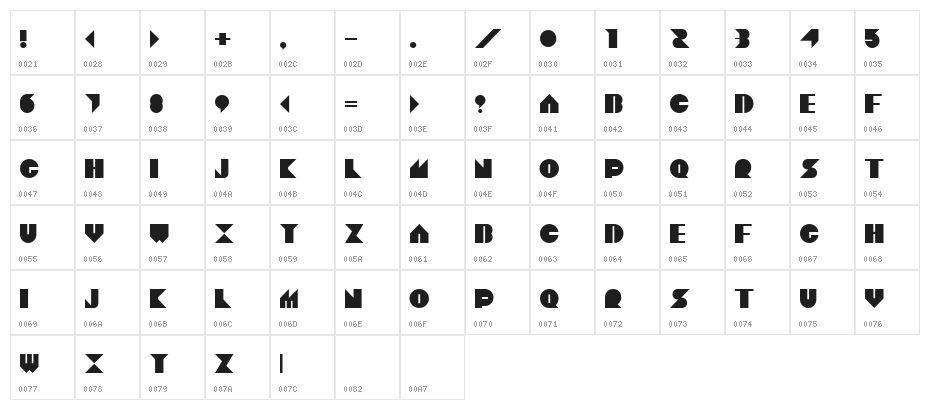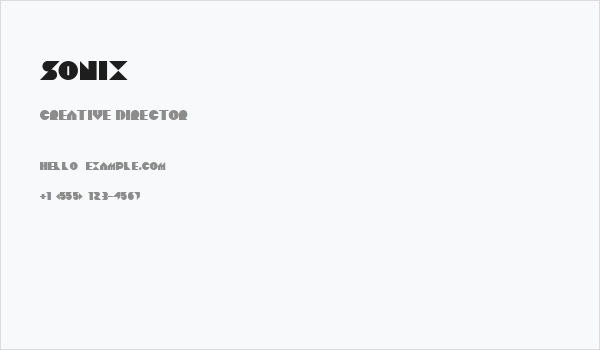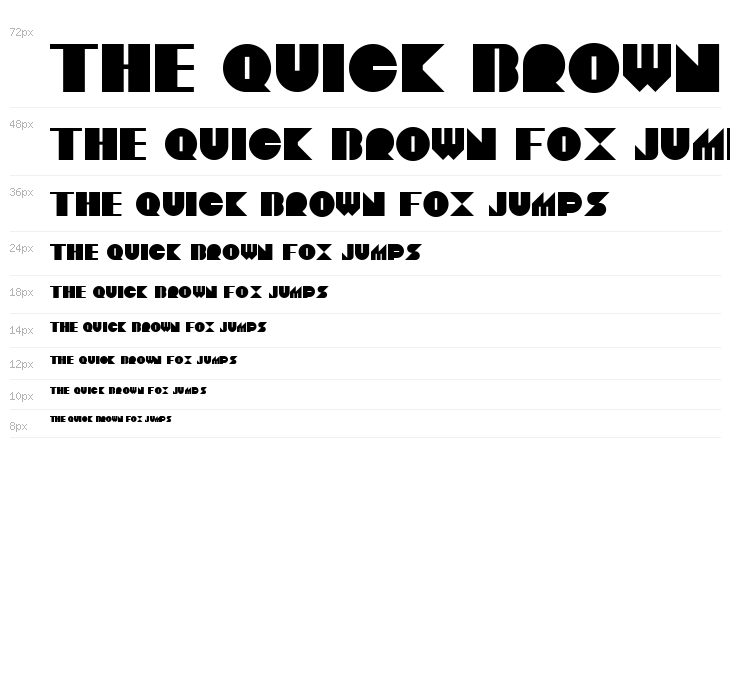
Sonix Font
Sonix Description
This font features a bold and geometric design, characterized by its sharp angles and strong presence. The letters are constructed with a combination of straight lines and circular forms, creating a dynamic and modern appearance. The uppercase and lowercase letters maintain a consistent style, with unique cuts and shapes that give the font a futuristic and industrial feel. The numbers and special characters follow the same design principles, ensuring uniformity across all glyphs. This font is ideal for projects that require a striking and memorable visual impact.
| Proposed Projects | Ideal for branding, posters, headlines, and any design that requires a bold and modern aesthetic. |